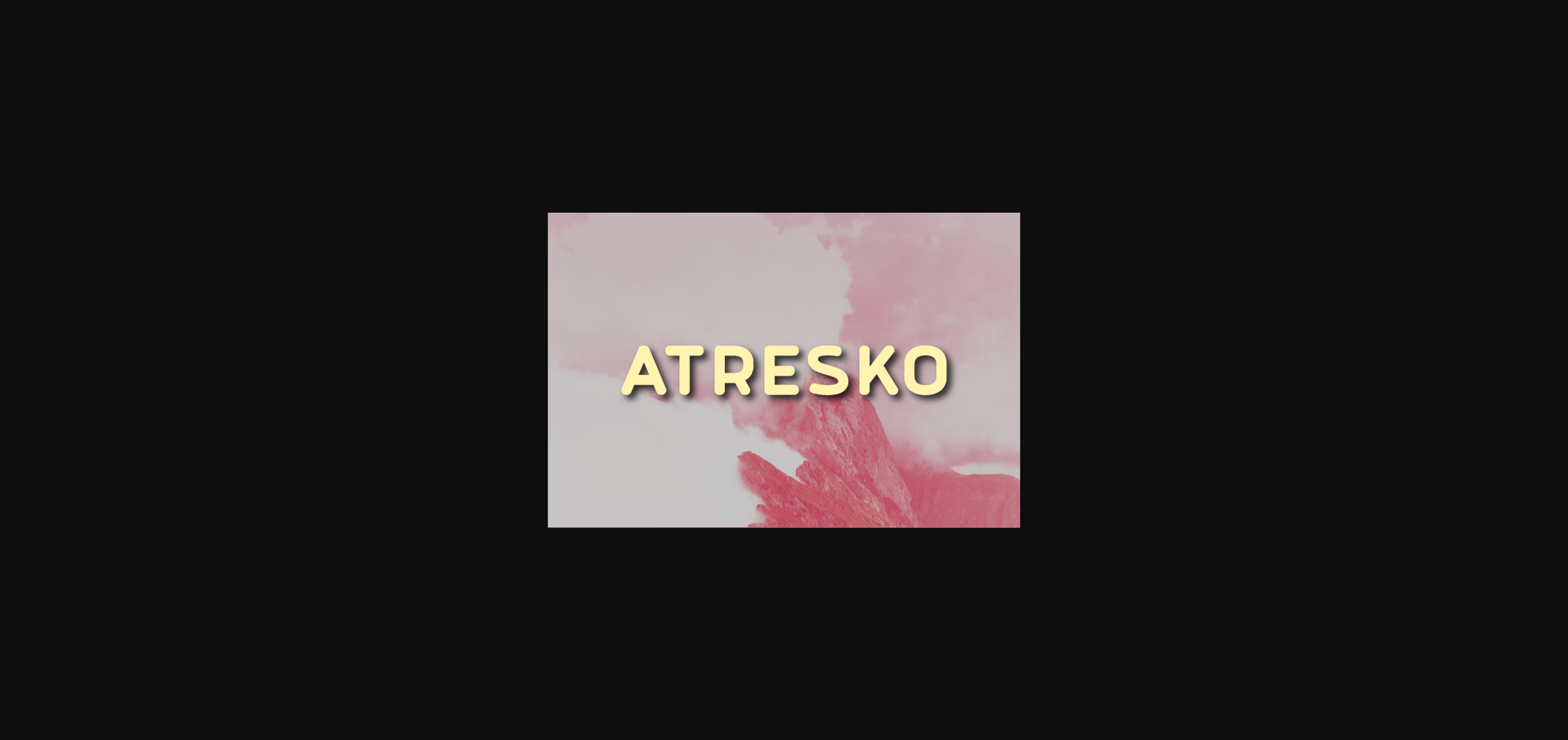
About Atresko Font
Atresko is a simple and neat sans serif font. It can easily be matched to an incredibly large set of projects, so add it to your creative ideas and notice how it makes them stand out!